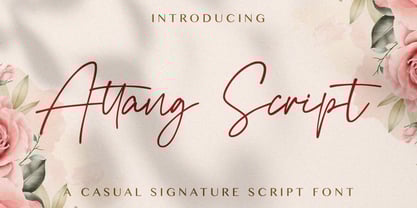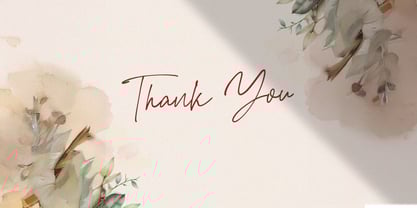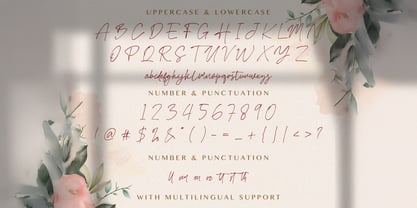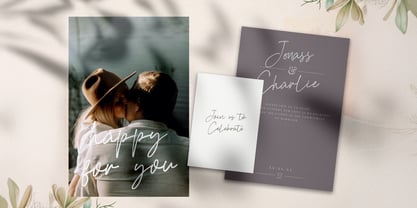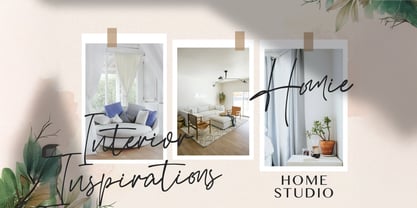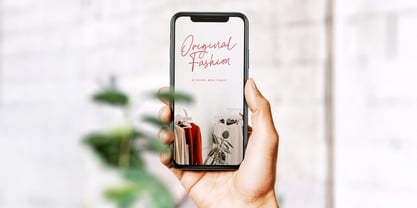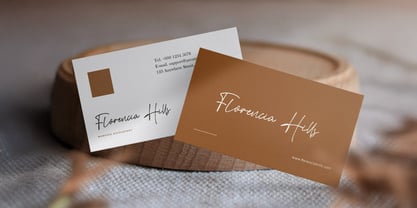
Attang Script
by Stringlabs Creative Studio
The Attang Script Font Family was designed by Virgiawan Listanto and published by Stringlabs Creative Studio. Attang Script contains 1 styles. More about this family
Attang Script is a lively and modern handwritten font that blends casual charm with creative flair. Featuring smooth, flowing strokes and natural letterforms, this font brings a personal and expressive feel to any design. Perfect for branding, invitations, and social media content, Attang Script adds a handcrafted elegance that feels both fresh and approachable.
Designers: Virgiawan Listanto
Foundry: Stringlabs Creative Studio